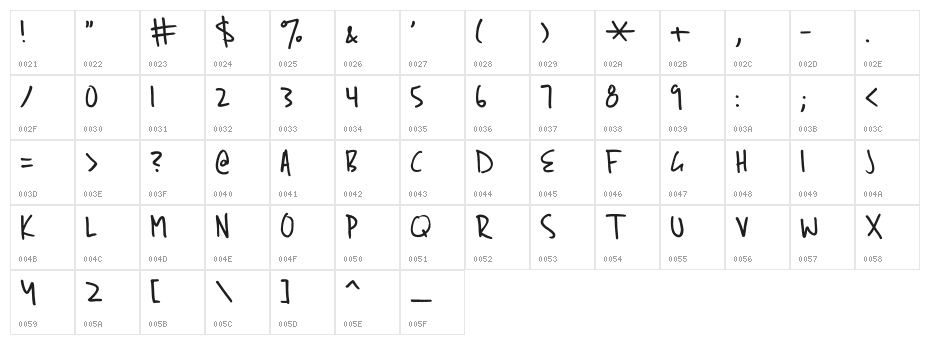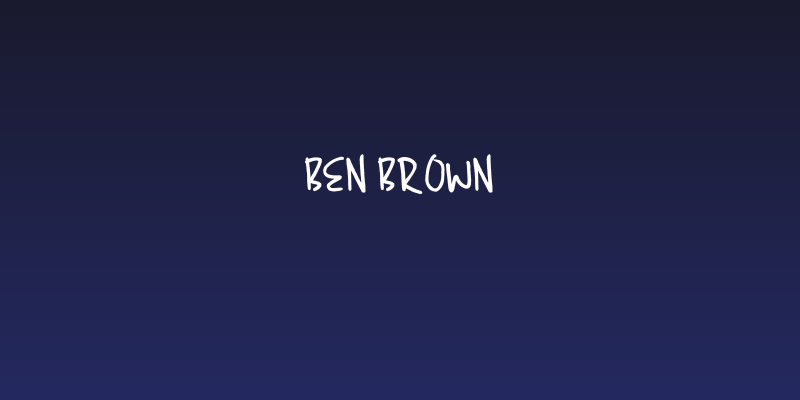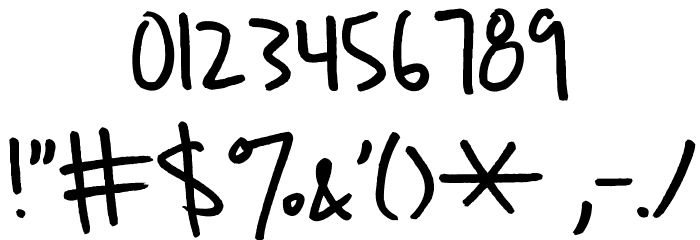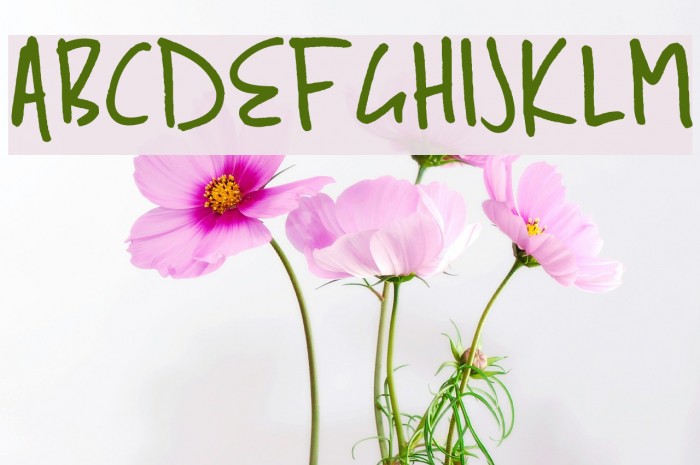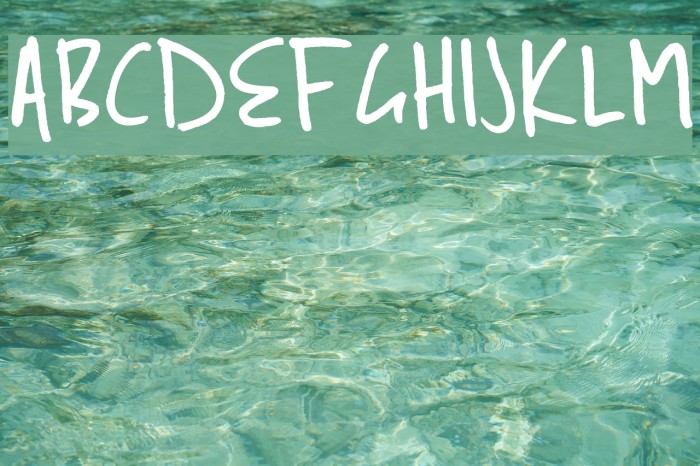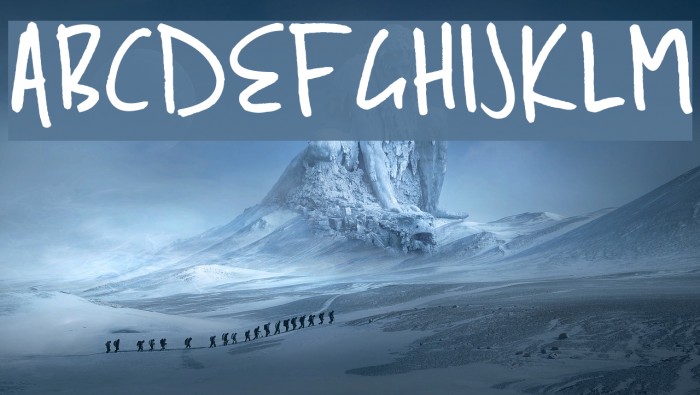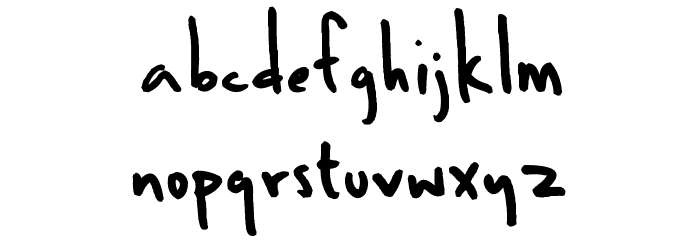
Ben Brown Font
Ben Brown Description
This font exhibits a casual, handwritten style that conveys a sense of informality and approachability. The letters are slightly irregular, with varying stroke widths that give it a dynamic and lively appearance. The uppercase and lowercase letters maintain a consistent style, with rounded edges and a playful character. The numbers and special characters follow the same aesthetic, ensuring a cohesive look across all text elements. This font is ideal for projects that require a personal touch or a creative flair, such as invitations, greeting cards, or artistic branding. Its unique style makes it stand out, while still being legible and versatile.
| Overall Style | Casual, Playful |
| Use Case | Headlines, Artistic projects, Personal notes |
| Proposed Projects | Ideal for invitations, greeting cards, artistic branding, and creative projects. |